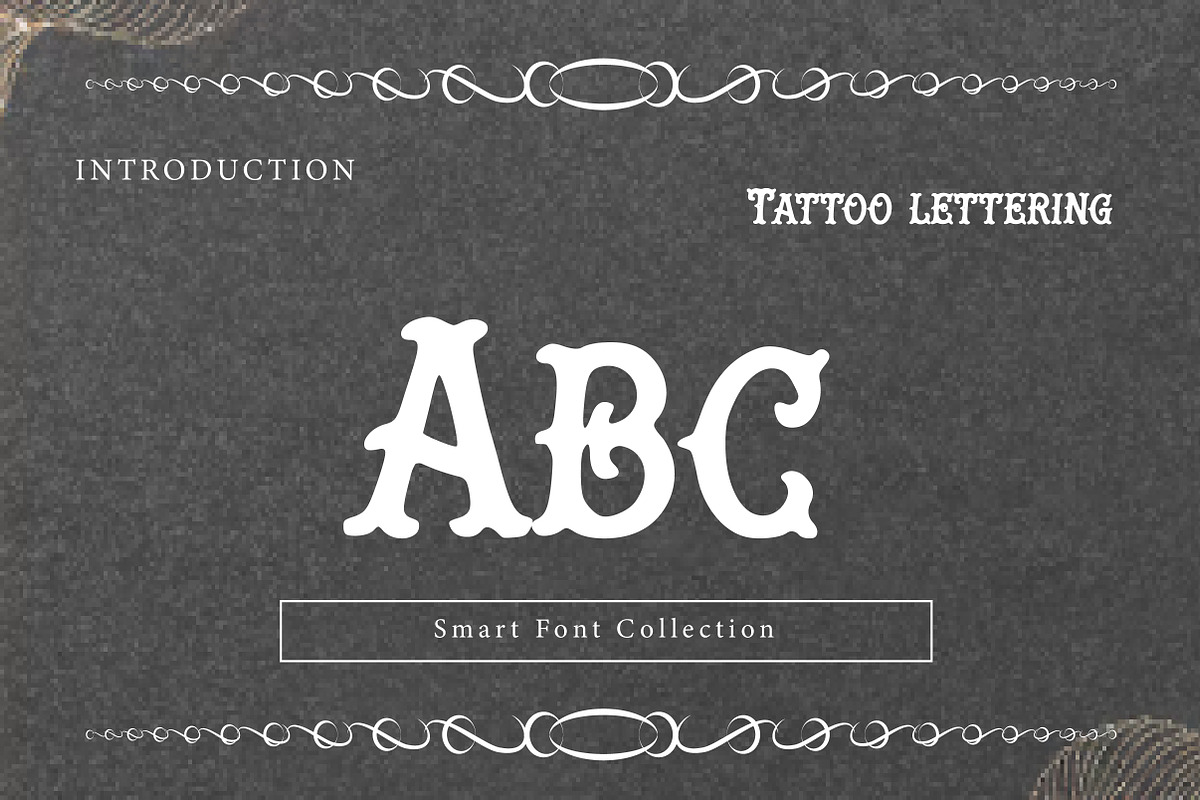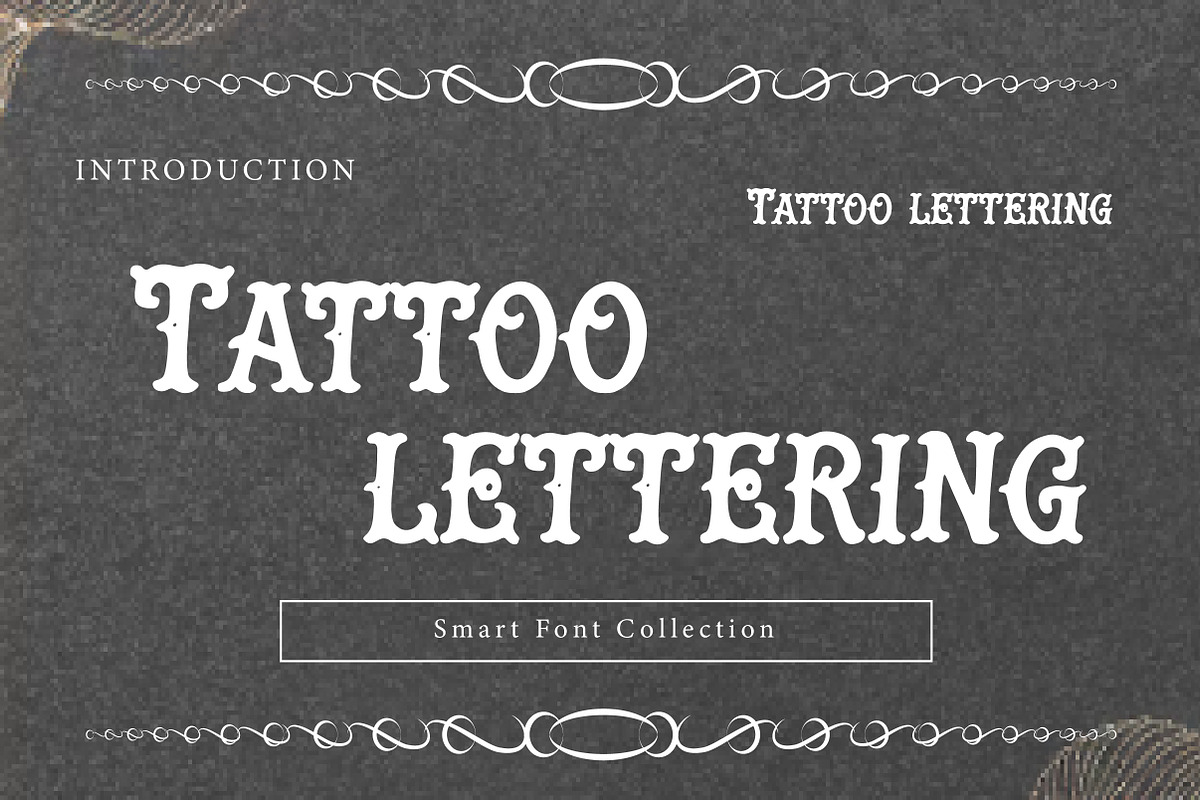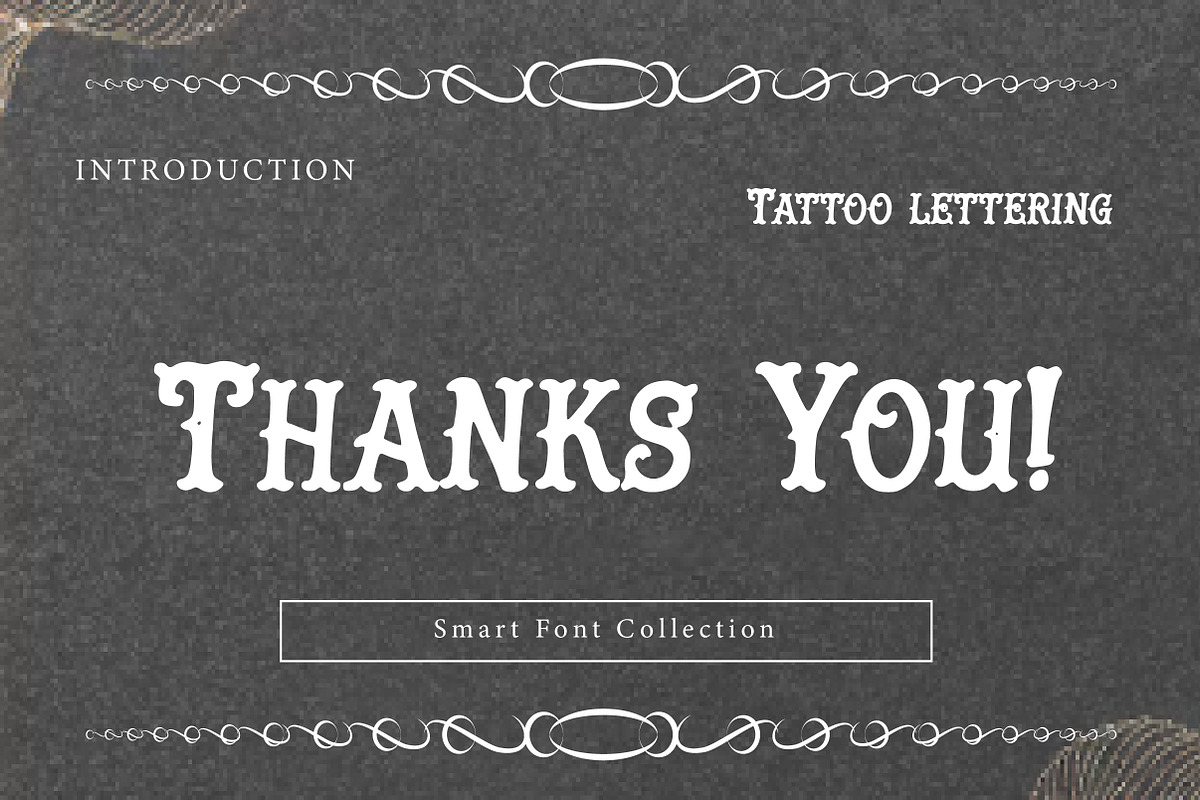
Tattoo lettering
Tattoo Lettering is a bold vintage-inspired display font with classic tattoo and old-school signage character. Featuring strong strokes, decorative curves, and a slightly rugged inked feel, this typeface is perfect for tattoo designs, barbershop branding, biker themes, band logos, posters, labels, packaging, and streetwear graphics. Its traditional yet striking appearance makes headlines stand out while maintaining an authentic retro vibe. Tattoo Lettering brings timeless ink culture into modern design.